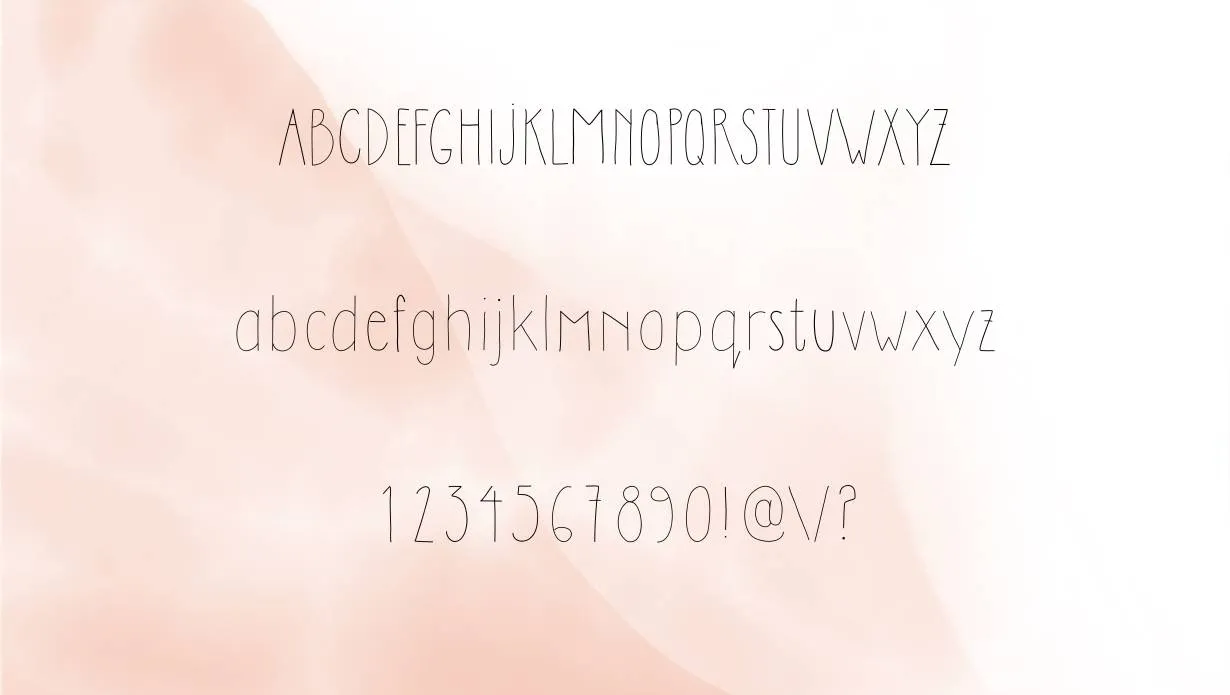
The Dilem Handwritten font beautifully mimics the art of personal penmanship, adding a heartfelt touch to any project. With its resemblance to handcrafted letters, it emanates warmth and approachability.
Perfect for creating a familiar and intimate connection, this font brings a personalized charm, inviting readers to engage with its friendly and genuine feel.
Whether used for invitations, personal messages, or creative designs, its authenticity and warmth resonate effortlessly.